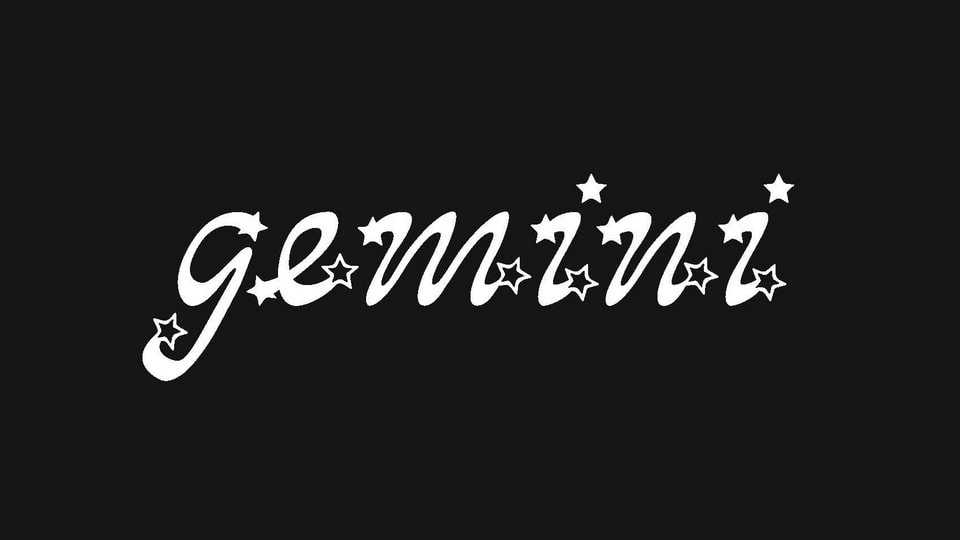
Download Gemini font, an enchanting script typeface where each letter is a stroke of stardust. Crafted with a single, fluid stroke, Gemini font begins each letter with a filled-in star and concludes with a hollow, outlined star.
Designer: Hiya Singh